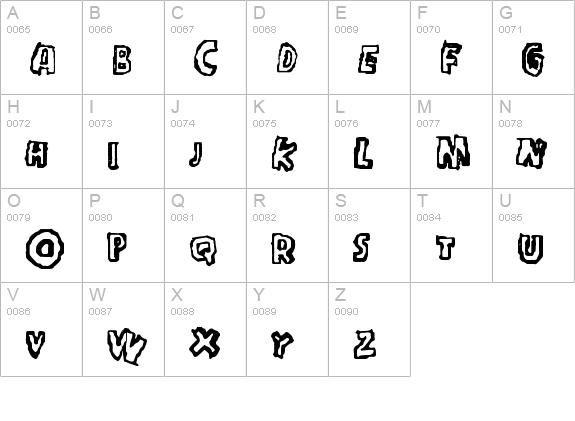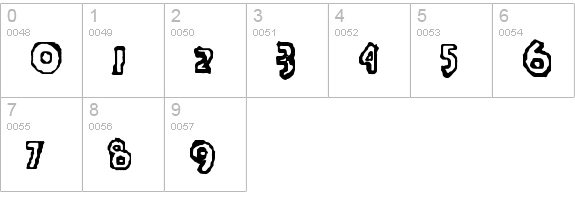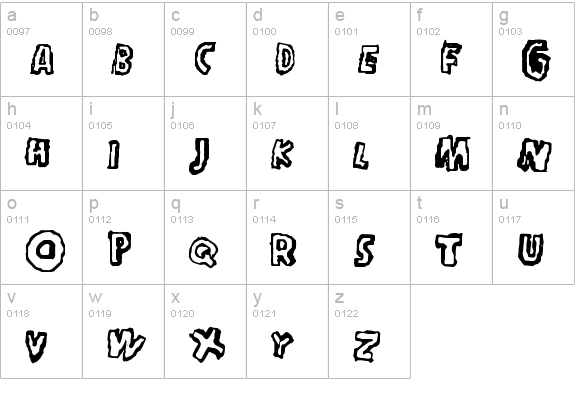
The in_my_head font is a whimsical and creative typeface that captures the essence of imagination and artistic expression. With its playful curves and unique letter shapes, this font is perfect for adding a touch of personality to your designs. Whether you're working on a fun project or looking to make a statement, in_my_head is sure to stand out and make an impact. Best of all, the in_my_head font is freely available to download at FontsMarket.com, making it easily accessible for all your creative endeavors. So go ahead, unleash your creativity and let your imagination run wild with the in_my_head font!